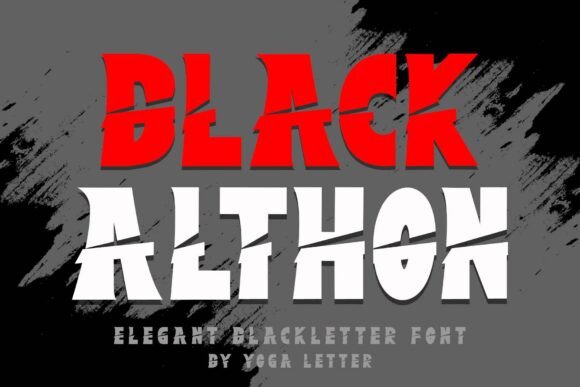
Introducing Black Althon Font: The Elegant Blackletter Typeface
In the world of typography, blackletter fonts have always been a popular choice for designers looking to add a touch of elegance and sophistication to their projects. One such font that has gained significant attention in recent times is the Black Althon Font. This stunning blackletter typeface is designed to make a statement, and its versatility makes it suitable for a wide range of applications.
What is Black Althon Font?
Black Althon is an elegant and unique blackletter font that boasts a distinctive style. Its intricate design and classic feel make it an excellent choice for designers seeking to create visually appealing projects. The font is equipped with a comprehensive range of characters, including uppercase and lowercase letters, numerals, punctuations, and multilingual support.
Key Features of Black Althon Font
- Uppercase and Lowercase Letters: The font includes a full set of uppercase and lowercase letters, ensuring that you have all the characters you need to create stunning text.
- Numerals and Punctuations: Black Althon Font comes with a range of numerals and punctuations, making it perfect for use in a variety of design projects.
- Multilingual Support: The font supports multiple languages, allowing you to use it for projects that require non-English characters.
Uses of Black Althon Font
The Black Althon Font is an incredibly versatile typeface that can be used in a wide range of applications. Here are some of the most popular uses of this elegant font:
Design Projects Where Black Althon Font Excels
- Movie Font: The font’s dramatic and elegant style makes it perfect for use as a movie font, adding a touch of sophistication to movie titles and posters.
- Movie Title: Black Althon Font is an excellent choice for movie titles, providing a unique and eye-catching way to showcase the title of a film.
- Metal Concert: The font’s bold and edgy style makes it suitable for use in metal concert designs, adding a touch of aggression and energy to posters and flyers.
- Business Branding: Black Althon Font can be used in business branding, providing a unique and memorable way to represent a company’s image.
- Sticker and Poster: The font’s bold and eye-catching style makes it perfect for use on stickers and posters, grabbing the attention of viewers and leaving a lasting impression.
- Banner and Logo: Black Althon Font can be used to create stunning banners and logos, providing a unique and recognizable way to represent a brand or organization.
- Print: The font’s elegant style makes it suitable for use in a variety of print materials, including brochures, flyers, and business cards.
Why Choose Black Althon Font?
There are many reasons why designers choose Black Althon Font for their projects. Here are some of the key benefits of using this elegant typeface:
Advantages of Using Black Althon Font
- Elegant and Unique: Black Althon Font boasts a distinctive style that sets it apart from other fonts, providing a unique and elegant way to enhance your designs.
- Versatile: The font’s versatility makes it suitable for use in a wide range of applications, from movie titles to business branding.
- High-Quality: Black Althon Font is designed to provide high-quality text, ensuring that your designs look professional and polished.
- Multilingual Support: The font’s multilingual support makes it perfect for use in projects that require non-English characters.
In conclusion, Black Althon Font is an elegant and unique blackletter typeface that is perfect for designers looking to add a touch of sophistication to their projects. Its versatility, high-quality design, and multilingual support make it suitable for use in a wide range of applications, from movie titles to business branding. Whether you’re a designer, artist, or simply someone looking for a unique font to enhance your project, Black Althon Font is an excellent choice.